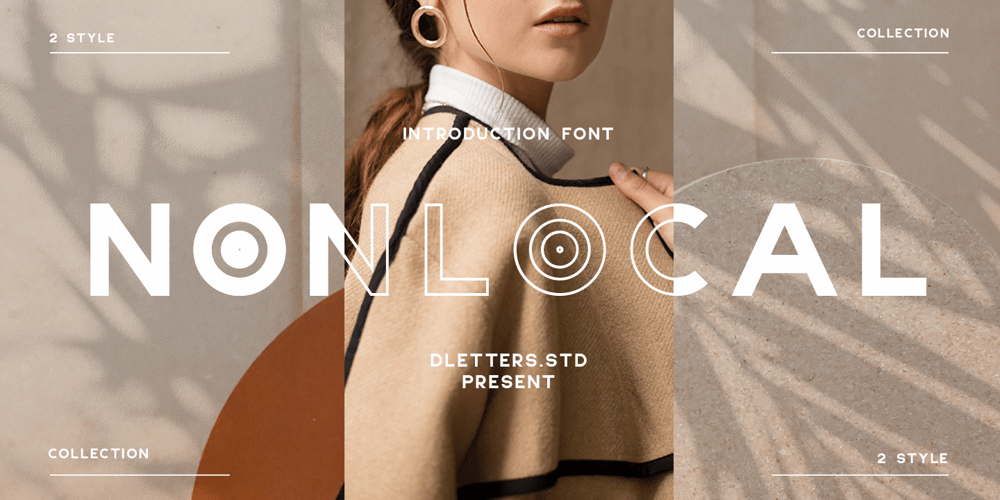
Nonlocal Font Family was designed by Diosi Julianto and published by DLetters Studio. Nonlocal contains 2 styles and family package options. NONLOCAL, has a firm personality and clearly produces a sturdy and consistent font, making it very easy to read that is suitable for everyday use. All caps fonts.USENONLOCAL works great in branding, logos, Quotes, headlines, high fashion, Landing Page and Magazine. Have 2 Style give you full to explore for your project.FEATURES2 Style / Numbers & Punctuation / Extensive Language SupportThanks for checking out NONLOCAL. I really hope you enjoy using it! please kindly send us a message for any question about our product.DLetters.Std